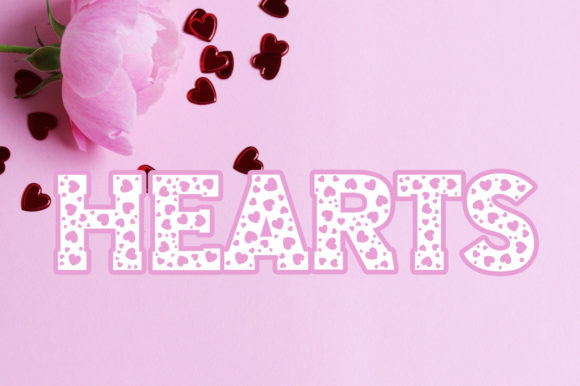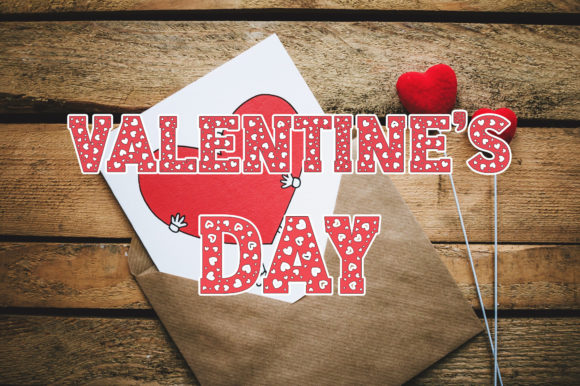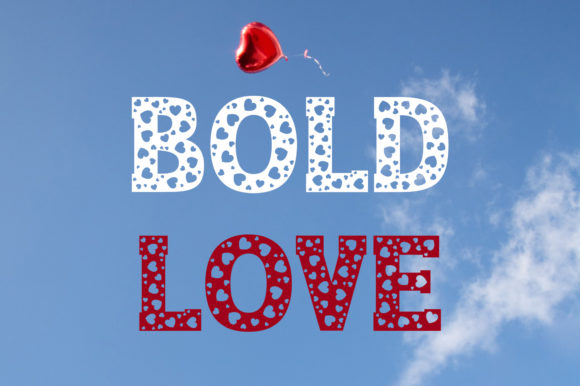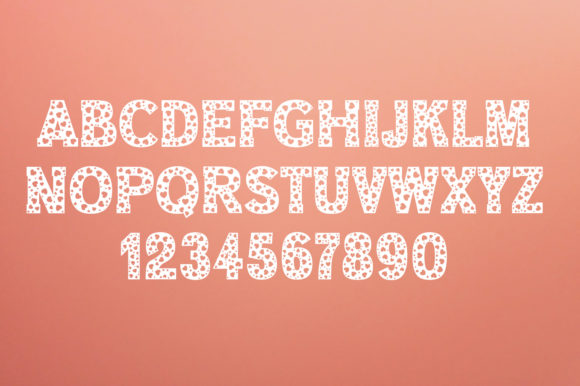
Introducing Bold Love Font: The Perfect Addition to Your Creative Projects
Are you tired of using the same old fonts in your creative projects? Do you want to add a touch of personality and uniqueness to your designs? Look no further than Bold Love Font, a sweet yet bold and thick lettered display font that’s sure to make your projects stand out.
What is Bold Love Font?
Bold Love Font is a beautifully designed display font that’s perfect for crafters, designers, and anyone looking to add a personal touch to their creative projects. With its bold and thick lettering, this font is sure to grab attention and make your designs pop.
Key Features of Bold Love Font
• Sweet yet bold design: Bold Love Font combines the perfect balance of sweetness and boldness, making it ideal for a wide range of creative projects.
• Thick lettering: The font’s thick lettering ensures that your designs will stand out, even from a distance.
• Display font: Bold Love Font is specifically designed as a display font, making it perfect for headlines, titles, and other prominent text elements.
• Easy to read: Despite its bold design, Bold Love Font is easy to read, making it perfect for use in a variety of creative projects.
How to Use Bold Love Font in Your Creative Projects
Bold Love Font is versatile and can be used in a wide range of creative projects, including:
• Graphic design: Use Bold Love Font to create stunning graphic designs, including brochures, flyers, and posters.
• Crafting: Add a personal touch to your crafting projects, such as handmade cards, scrapbooking, and DIY decorations.
• Digital design: Use Bold Love Font in your digital designs, including social media graphics, blog posts, and website headers.
Benefits of Using Bold Love Font
Using Bold Love Font in your creative projects offers a range of benefits, including:
• Unique designs: Bold Love Font helps you create unique and eye-catching designs that will set you apart from others.
• Professional look: The font’s bold and thick lettering gives your designs a professional look that’s sure to impress.
• Time-saving: With Bold Love Font, you can create stunning designs in no time, saving you time and effort.
Tips for Getting the Most Out of Bold Love Font
To get the most out of Bold Love Font, follow these tips:
• Use it sparingly: Use Bold Love Font sparingly to make a bigger impact. Use it for headlines and titles, and a simpler font for body text.
• Experiment with colors: Experiment with different colors to find the perfect combination that works with Bold Love Font.
• Pair it with other fonts: Pair Bold Love Font with other fonts to create a unique and visually appealing design.
Bold Love Font is a beautiful and versatile display font that’s perfect for crafters, designers, and anyone looking to add a personal touch to their creative projects. With its bold and thick lettering, this font is sure to make your designs stand out. So why wait? Download Bold Love Font today and start creating stunning designs that will leave a lasting impression.